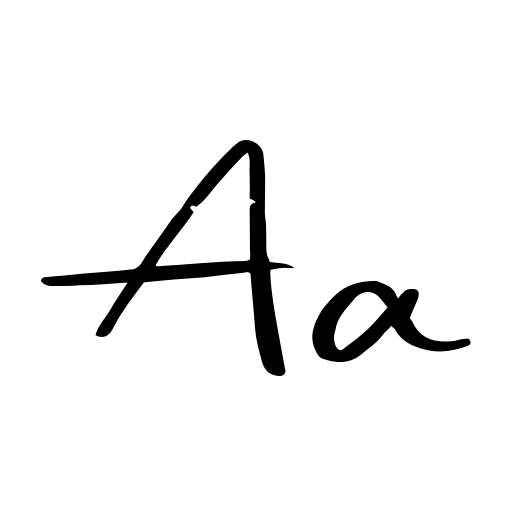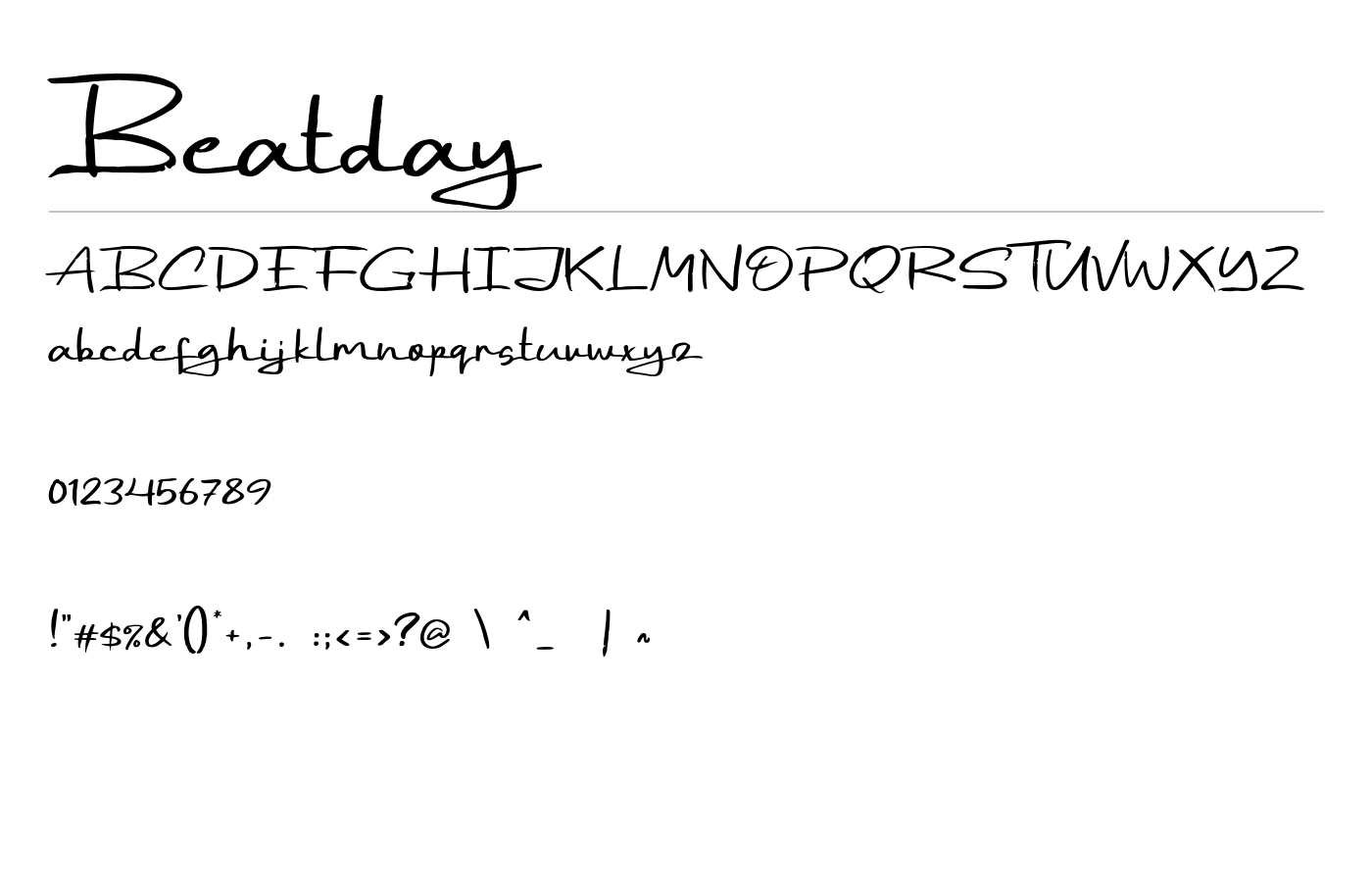
Beatday is a casual, handwritten-style font with a light, playful touch that mimics natural pen strokes. It features a tall x-height, narrow letterforms, and slightly irregular shapes that create an approachable and relaxed vibe, making it ideal for informal branding, personal projects, and creative headlines. This font works well where a friendly, human feel is desired, such as in invitations, social media graphics, or lifestyle product packaging.
Beatday Font
About Beatday Font